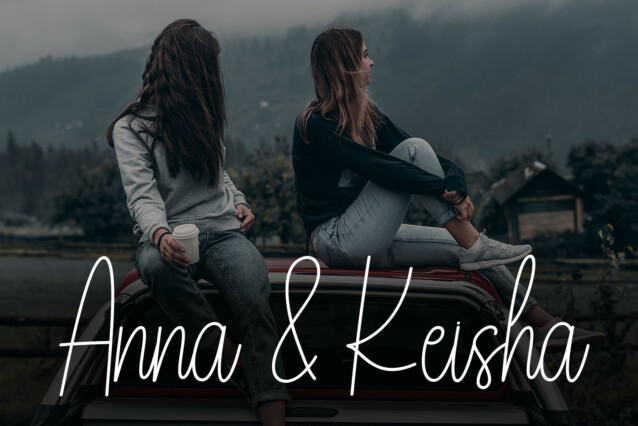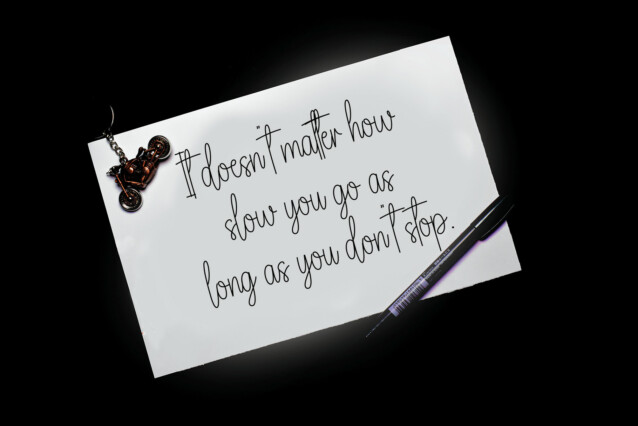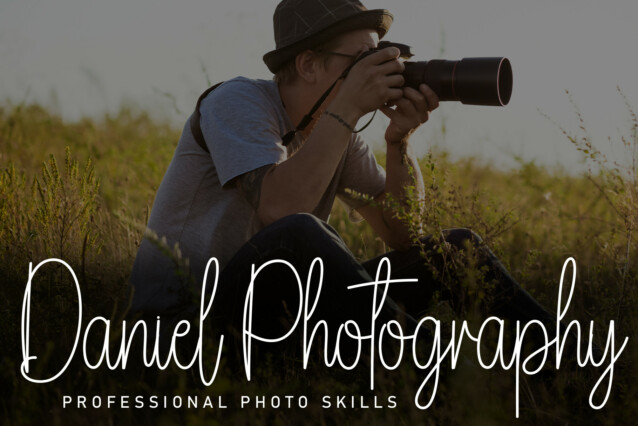
Blackstone Script Font
Blackstone Script Font is a sweet and friendly handwritten display font. Cute and fun, this font is ideal for writing wedding invitations, cards, or any other design that might need a playful touch!